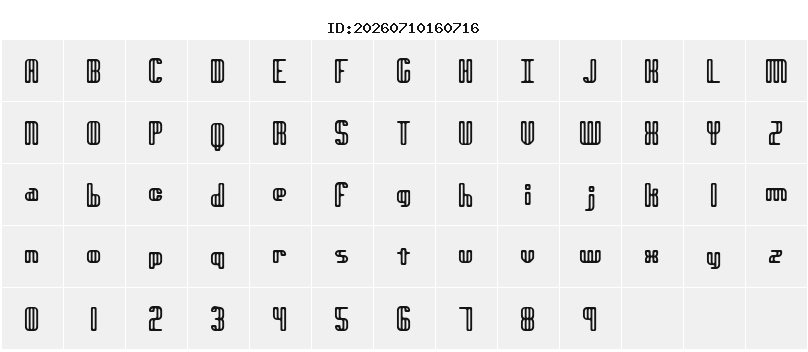
genotype RH (BRK) Preview
• Font Name: genotype RH (BRK)
• Full Font Name: genotype RH -BRK-
About genotype RH (BRK).ttf
genotype RH (BRK).ttf is a modern, elegant sans-serif font designed for ultimate readability and visual harmony. Perfect for branding, headlines, web design, and print materials.